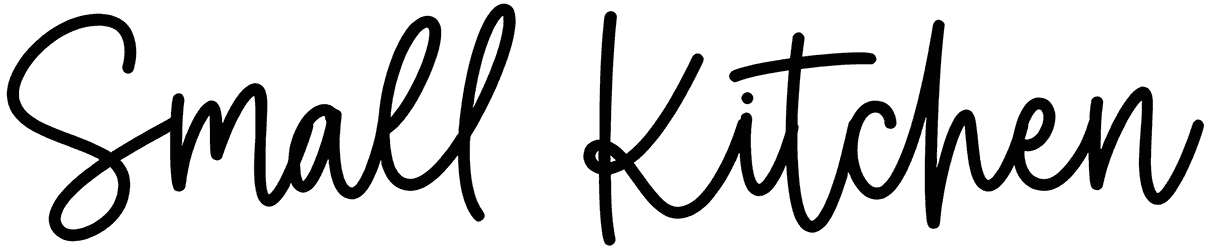
Small Kitchen Font
Meet Small Kitchen, a cute handwritten font featuring a quirky style, as well as additional playfulness and fun that provides an entertaining atmosphere with a long-lasting effect.
It will boost the popularity of design through its unique appeal and provide your audience with great pleasure. This font can be used in various applications, including coffee shop menus, digital planners, website headers, cartoon titles, and children-related projects.